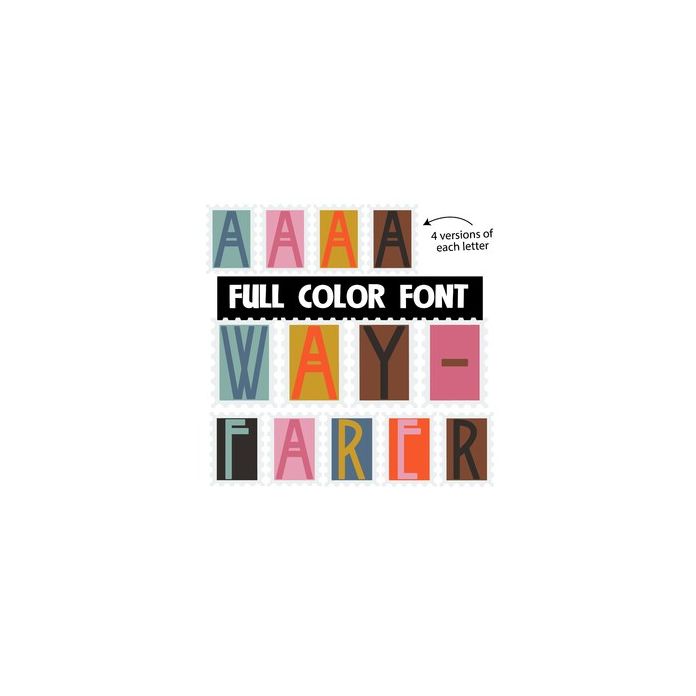
This full-color font features stamp-like designs with art-deco styled lettering. There is a second upper and lowercase you can access through your system's character map. This font works best for titles, displays, posters and more. Please note color fonts will show as black in non compatible programs. This font type is compatible with Silhouette Studio.